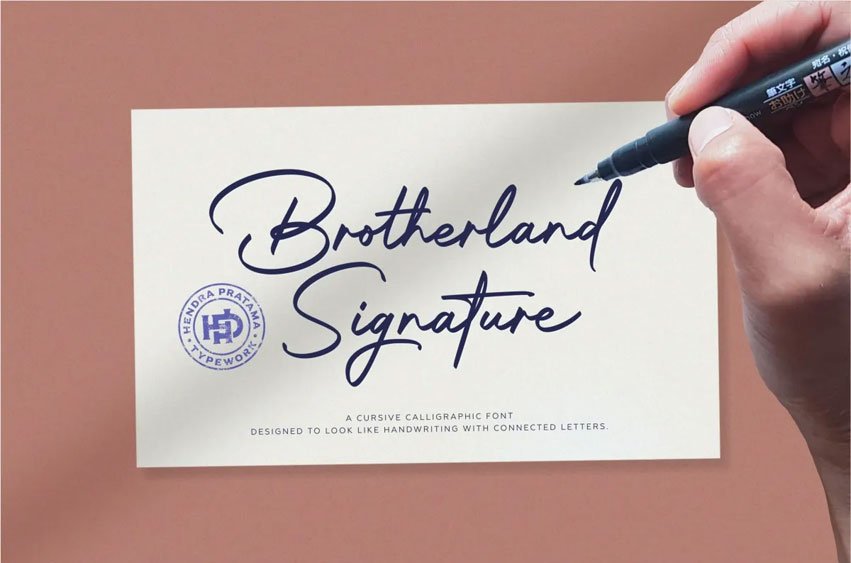
Brotherland Signature Font
Brotherland Signature Font is an innovative Signature font with smooth lines and an upright calligraphic style that is especially suitable for use as a logotype, signature or digital signature on personal name cards or brands.
Also, its smooth lines and upright calligraphic style are appropriate for designing emboldening posters of cosmetics book covers magazines or movie titles or simple quotes designs.